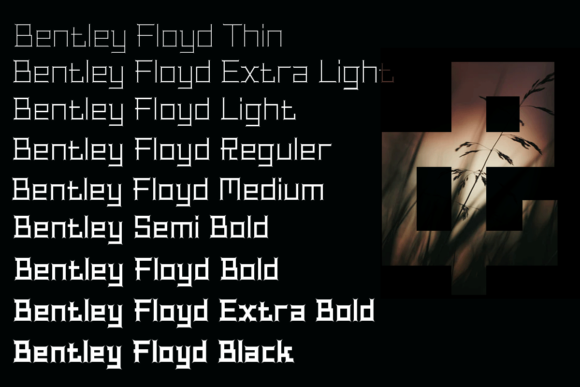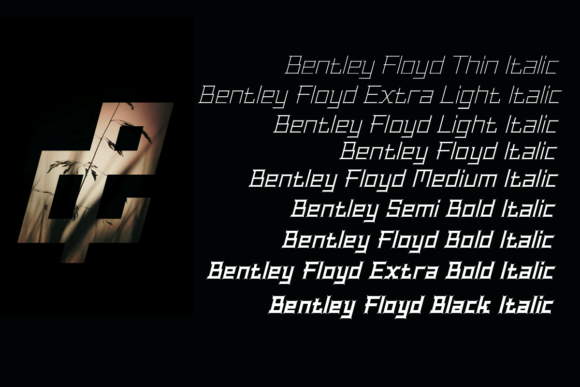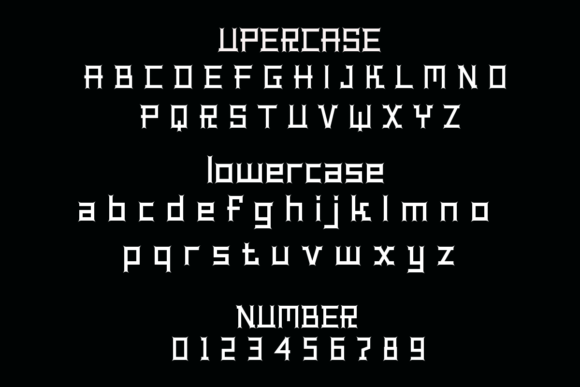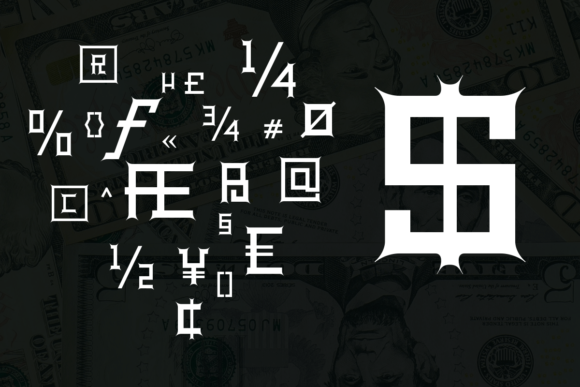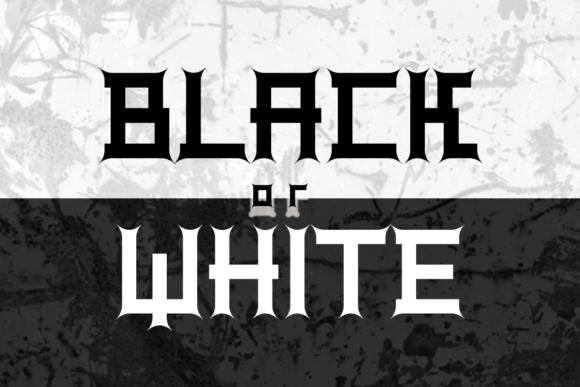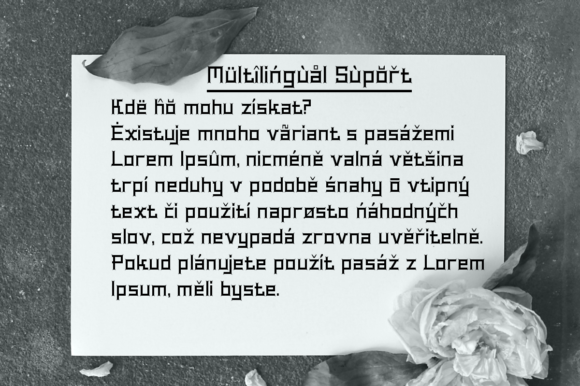
Discover the Power of Bold Typography: Introducing Bentley Floyd Font
Remember that moment when you’re working on a project and the perfect font just clicks into place? It’s like the missing piece of a puzzle, and everything falls into alignment. That’s exactly what happens when you use the Bentley Floyd Font. This thick lettered and assertive display font is designed to elevate your crafting ideas and take them to the next level.
Whether you’re creating cards, branding, labels, or any other project, Bentley Floyd Font is the perfect companion. Its bold and eye-catching design makes it a valuable asset for designers who want to make a statement. With its versatility and wide range of applications, this font is sure to become a go-to choice for any creative project.
Bentley Floyd Font Key Features
- Unique Characteristics: The Bentley Floyd font features a unique blend of modern and vintage elements, with intricate details and ornaments that add a touch of elegance to any design.
- Font Style: The font is available in both regular and italic styles, providing designers with flexibility to create a range of visual effects and emphasize specific text elements.
- Character Set: The font includes a comprehensive character set, covering Latin, Cyrillic, and Greek alphabets, as well as a range of punctuation and symbol glyphs.
Bentley Floyd Font Review
I recently had the chance to work with the Bentley Floyd font, and overall, I was quite impressed with its unique charm. ✨ Here are a few things that I think work well:
- Playful feel: The font has a quirky, laid-back vibe that’s perfect for creative projects or brands that want to stand out.
- Highly customizable: With over 1,000 glyphs and a wide range of OpenType features, you can create some truly unique and personalized typography.
- Great for display text: The font’s bold, energetic lines make it ideal for headings, titles, and other display text applications.
However, I do have a few reservations about the font. ⚠️ Here are some limitations I encountered:
- Readability issues: At smaller font sizes, the font’s quirky lines can become difficult to read, especially for those with vision impairments.
- Lack of legibility in body text: While the font is great for display text, it can be challenging to use for large blocks of body text, where readability is crucial.
- May not be suitable for formal or professional applications: The font’s playful feel may not be suitable for more formal or professional projects, where a more traditional or conservative font is preferred.
Overall, I think the Bentley Floyd font is a great choice for creative projects or brands that want to stand out. However, it may not be the best fit for every project, and users should be aware of its limitations before using it.
Bentley Floyd Font: A Practical Application Guide
For optimal results, use the Bentley Floyd font in conjunction with bold and italic font styles to create emphasis and hierarchy in your design. You can also experiment with different font sizes and colors to create a visually appealing design.
The Bentley Floyd font is ideal for use in creative and artistic projects, such as invitations, brochures, and posters. It’s also great for use in branding and logo design, as it has a unique and distinctive look that can help your brand stand out.